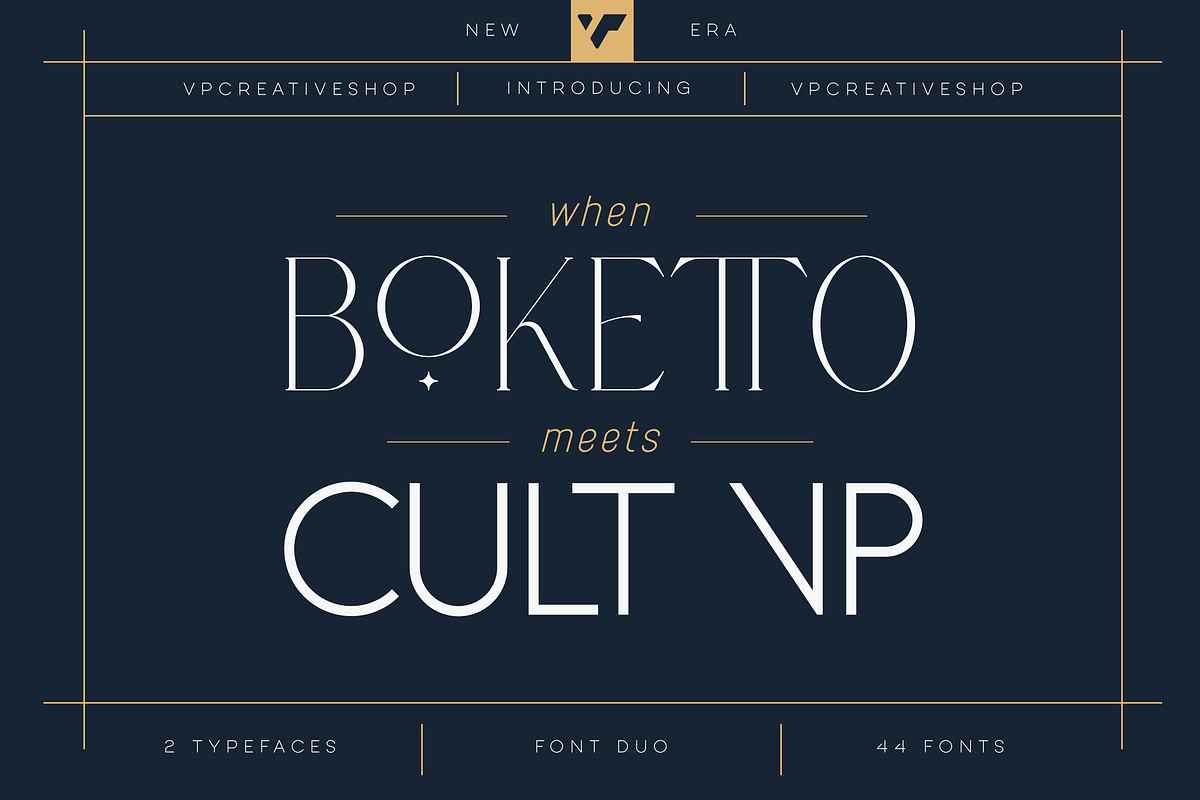
Please note, to use these fonts for commercial purposes, you must purchase the full version. "When Boketto meets Cult VP" is an extensive collection of 44 fonts, combining modern designs with a touch of artistic flair. Perfect for logos, branding, packaging, invitations, and creative projects, this bundle offers a wide range of versatile styles, from bold display fonts to sleek script fonts. Whether you're working on a high-end brand, a creative campaign, or a fun event, this collection provides endless possibilities for adding impact and style to your designs. Test it out and enjoy free download access for personal use. Explore the creative potential of When Boketto meets Cult VP 44 Fonts Free Download before purchasing the commercial license. Elevate your designs with this comprehensive, dynamic font collection.